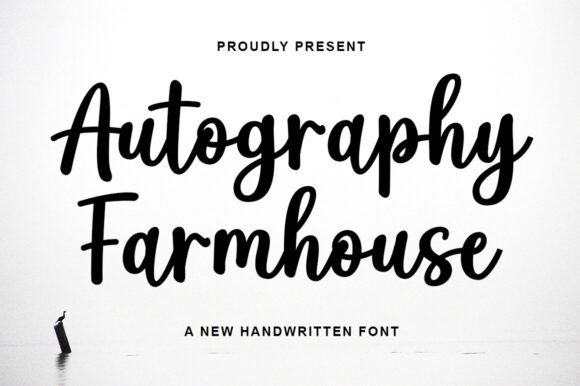
Introducing Autography Farmhouse Font: A Handcrafted Script with a Girly and Modern Twist
In the world of typography, fonts play a crucial role in conveying the tone and personality of a brand or design. With the vast array of font styles available, it can be challenging to find the perfect one that stands out from the crowd. However, if you’re looking for a font that exudes a sense of femininity and modernity, look no further than Autography Farmhouse Font. In this article, we’ll dive into the world of Autography Farmhouse Font, exploring its unique features, uses, and benefits.
What is Autography Farmhouse Font?
Autography Farmhouse Font is a handcrafted script font that boasts a unique blend of girly and modern elements. This original typeface is designed to add a touch of elegance and sophistication to any graphic design project. With its flowing curves and delicate lines, Autography Farmhouse Font is perfect for creating visually stunning branding materials, t-shirts, prints, business cards, logos, posters, and more.
Key Features of Autography Farmhouse Font
- Handcrafted script font: Autography Farmhouse Font is carefully crafted to provide a unique and personalized touch to your designs.
- Girly and modern style: This font combines feminine elements with a modern twist, making it perfect for a wide range of design projects.
- Original typeface: Autography Farmhouse Font is an original creation, ensuring that your designs stand out from the crowd.
- Versatile: This font is suitable for various graphic design applications, including branding materials, t-shirts, prints, business cards, logos, posters, and more.
Uses of Autography Farmhouse Font
Autography Farmhouse Font is an incredibly versatile font that can be used in a variety of design projects. Here are some of the most popular uses of this font:
- Branding materials: Create stunning logos, business cards, and letterheads that showcase your brand’s personality.
- T-shirts and apparel: Add a touch of elegance to your t-shirt designs with Autography Farmhouse Font.
- Prints and posters: Create eye-catching prints and posters that showcase your message in a beautiful and stylish way.
- Photography and quotes: Use Autography Farmhouse Font to add a personal touch to your photography and quote designs.
Benefits of Using Autography Farmhouse Font
So, why choose Autography Farmhouse Font for your design projects? Here are some of the benefits of using this font:
- Unique and personalized: Autography Farmhouse Font adds a touch of personality to your designs, setting them apart from the rest.
- Elegant and sophisticated: This font exudes elegance and sophistication, making it perfect for high-end designs.
- Versatile: Autography Farmhouse Font can be used in a wide range of design projects, making it a valuable addition to your font library.
- Easy to read: Despite its elegant and cursive nature, Autography Farmhouse Font is easy to read, making it perfect for body text and headings.
Tips and Tricks for Using Autography Farmhouse Font
To get the most out of Autography Farmhouse Font, here are some tips and tricks to keep in mind:
- Pair with contrasting fonts: Pair Autography Farmhouse Font with contrasting fonts to create visual interest and hierarchy.
- Use for headings and titles: Use Autography Farmhouse Font for headings and titles to add a touch of elegance and sophistication.
- Experiment with colors: Experiment with different colors to find the perfect match for your design.
In conclusion, Autography Farmhouse Font is a stunning handcrafted script font that adds a touch of elegance and sophistication to any design project. With its unique blend of girly and modern elements, this font is perfect for a wide range of applications, from branding materials to t-shirts and prints. Whether you’re a designer, entrepreneur, or simply someone who appreciates beautiful typography, Autography Farmhouse Font is a valuable addition to your font library.